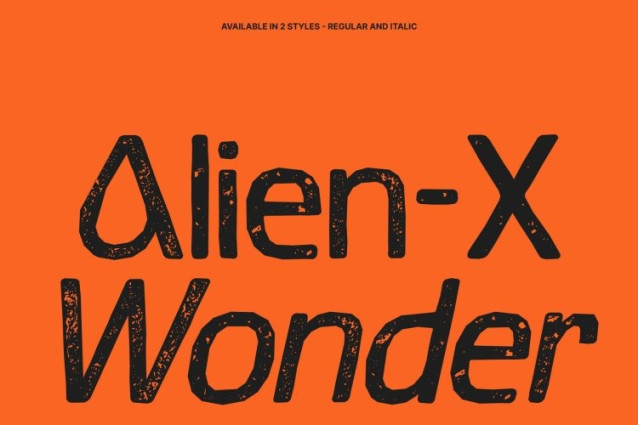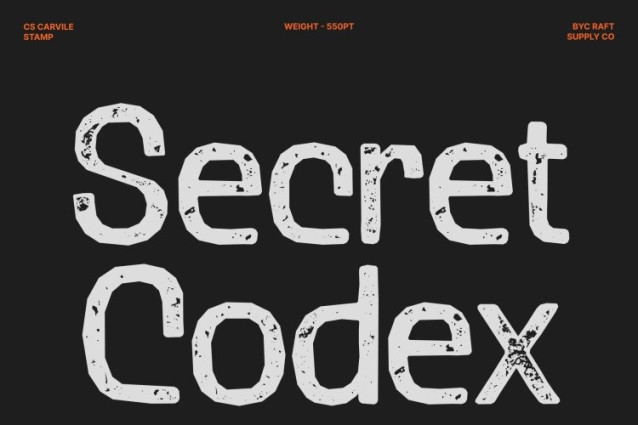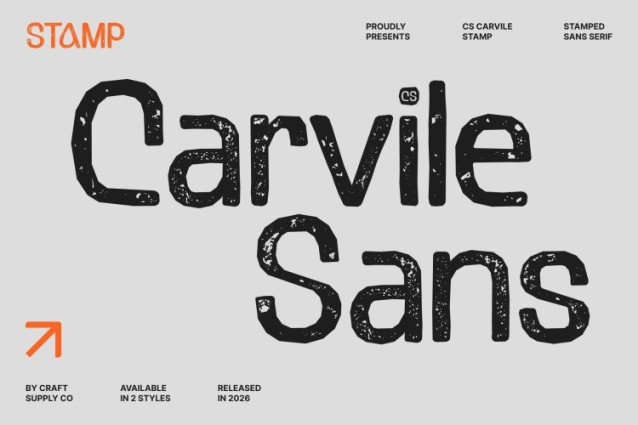
CS Carvile Stamp Font
CS Carvile Stamp Font – This is a modern sans serif font designed with clean geometry and refined curves that bring a graceful and distinctive character to contemporary typography. Its gentle, flowing letterforms create a soft visual rhythm, giving the typeface a modern yet approachable personality. Enhanced with a stamp effect, the font gains a subtle vintage texture that adds depth and handcrafted charm to its smooth structure.
Professional Appearance with a Relaxed Feel
Balancing professionalism with warmth, maintains a polished and structured appearance while offering a calm, relaxed tone. The harmonious curves make the typeface feel friendly and welcoming without sacrificing clarity or precision. The stamp texture introduces slightly worn ink details, creating a tactile, organic quality that enriches the modern design.
Contemporary Clarity with Artistic Texture
The clean construction of the letterforms ensures excellent readability, while the stamp effect adds a layer of visual character reminiscent of traditional printing techniques. This blend of modern simplicity and vintage texture results in a font that feels both refined and expressive.
Versatile for Branding and Modern Visual Identity
This font adapts effortlessly across a wide range of design applications, including branding, editorial layouts, social media graphics, and digital interfaces. Ideal for headings, logos, posters, and promotional materials, the font brings together smooth modern curves and subtle vintage texture creating a design presence that feels approachable, stylish, and memorable.